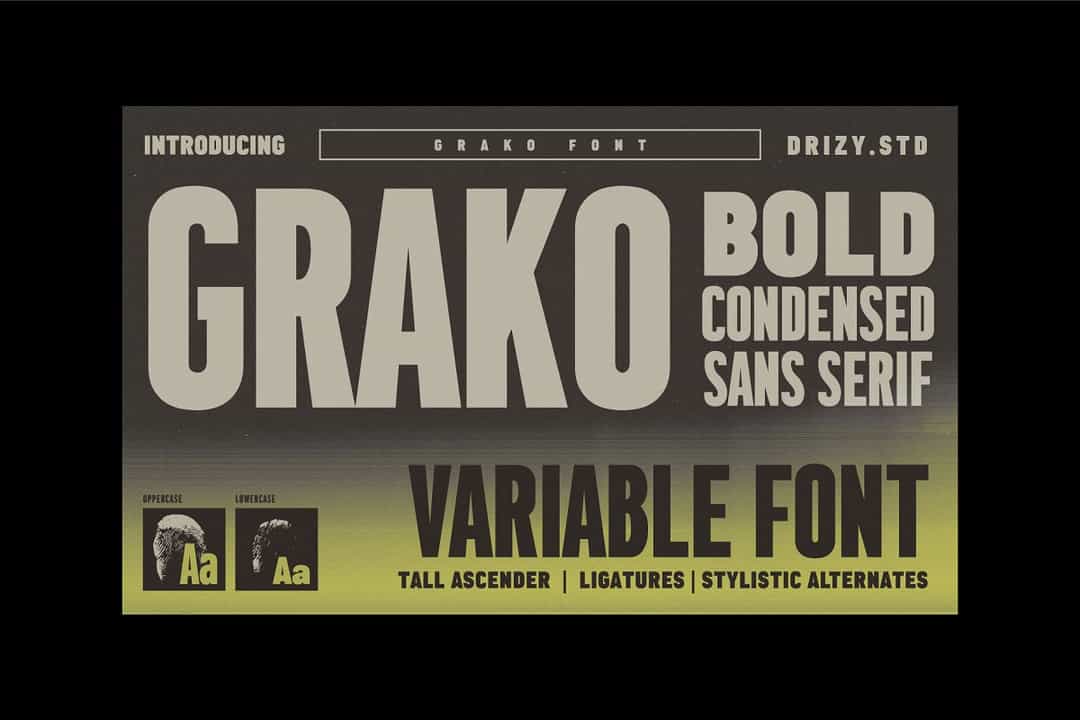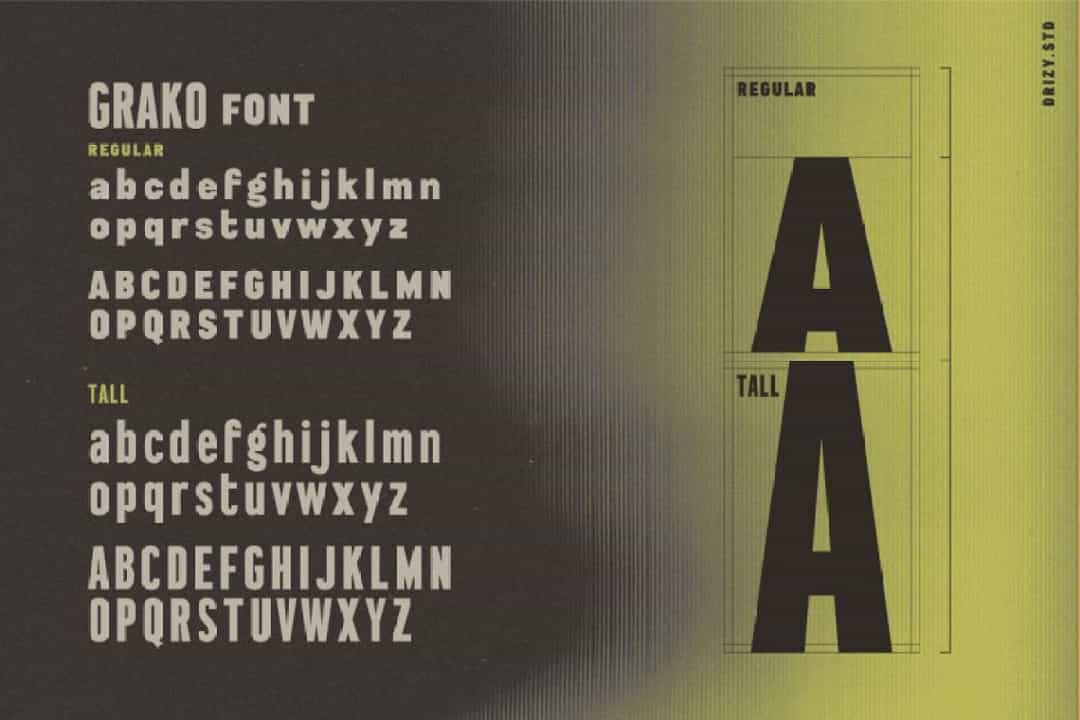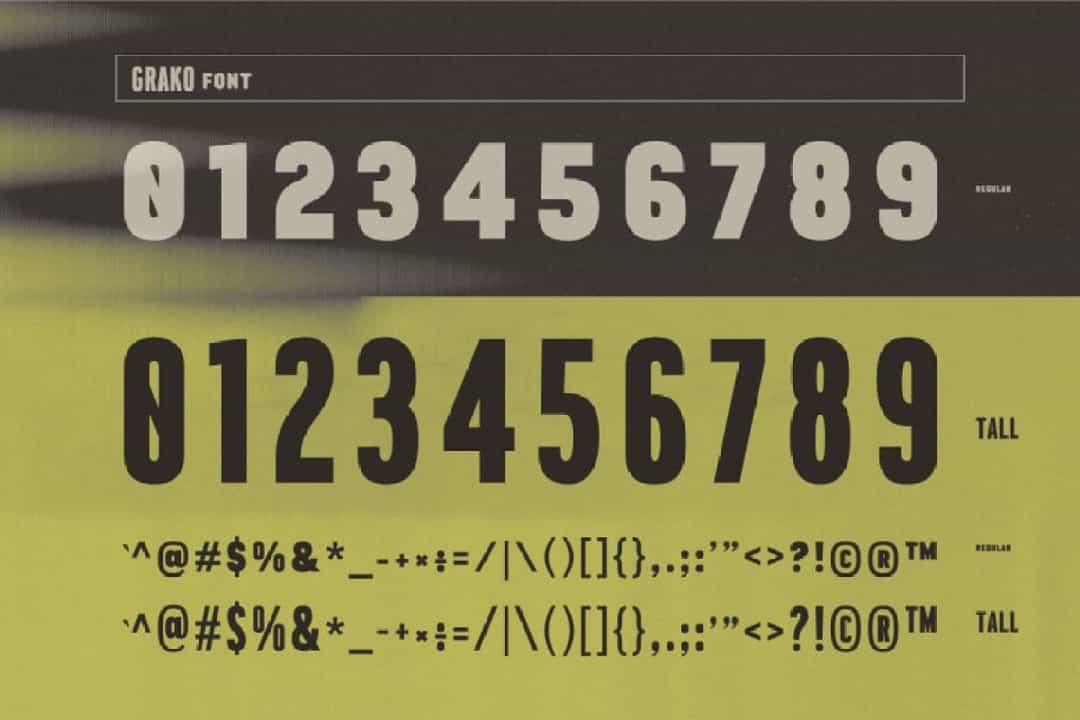
Grako – Bold Condensed Sans Serif Variable Font, a font that is on the edge of innovation and will make your visual projects to be powerful especially those in Noir Crime. Grako, with its strong and compact shape, attracts attention which is why it is the right choice for headlines, titles and all design elements that need a bold modern look.